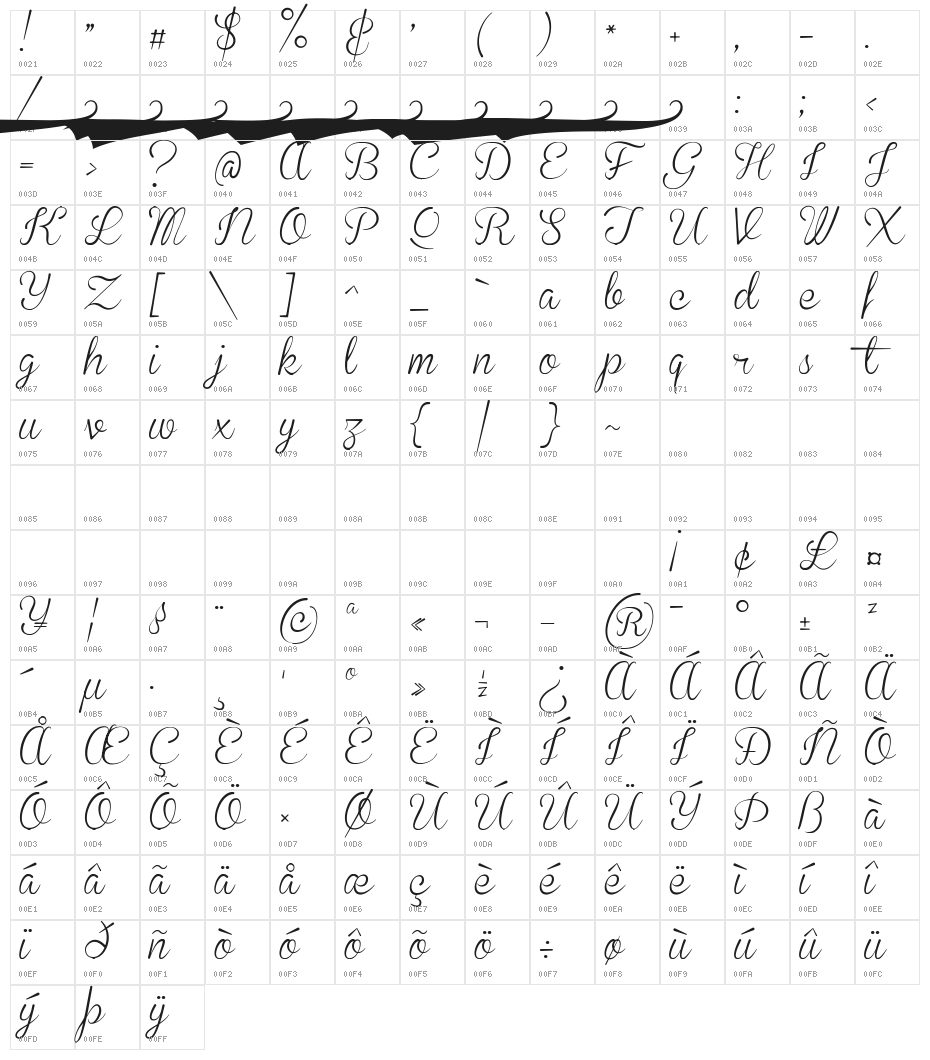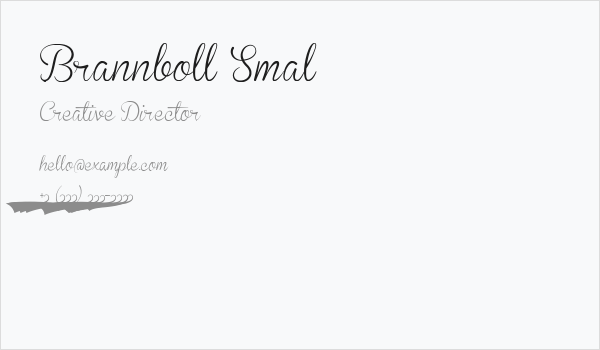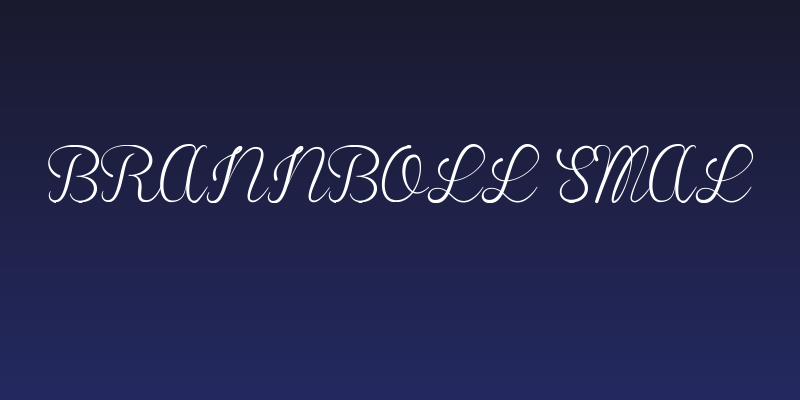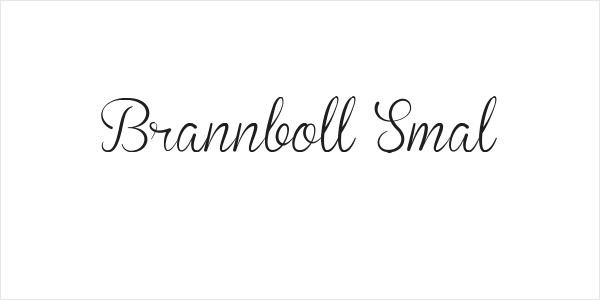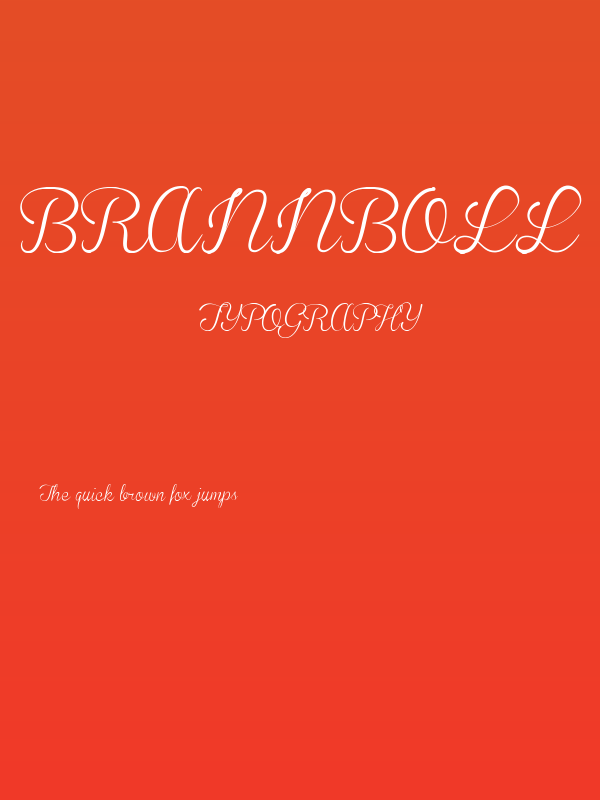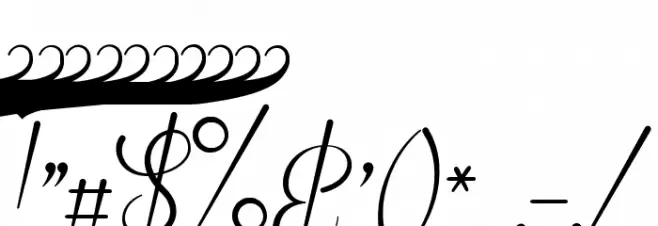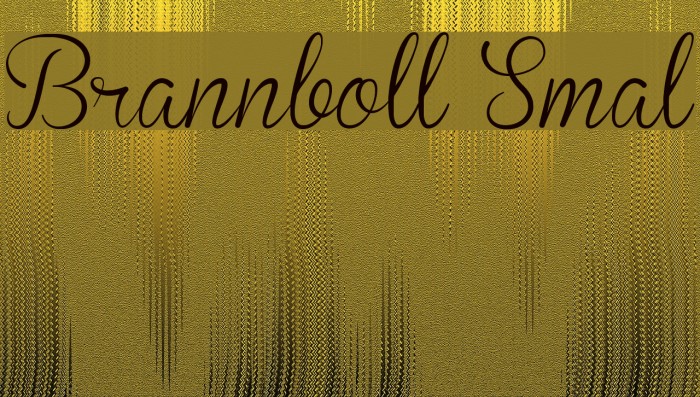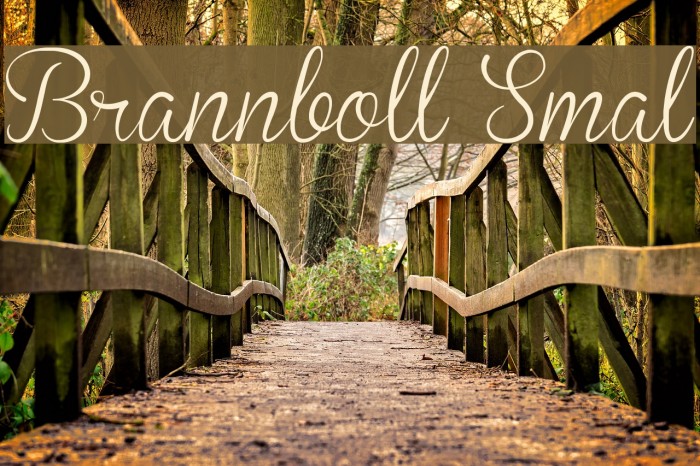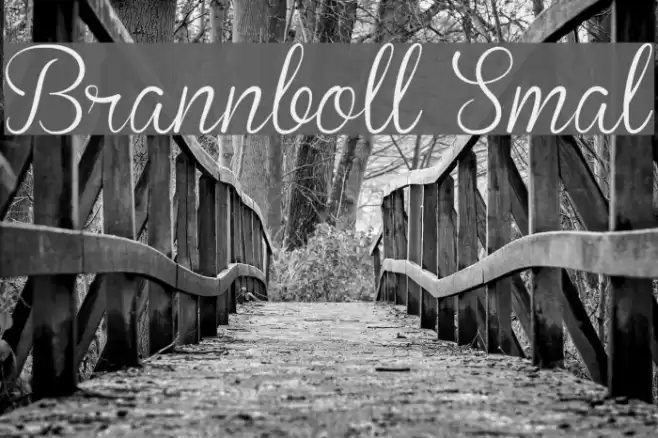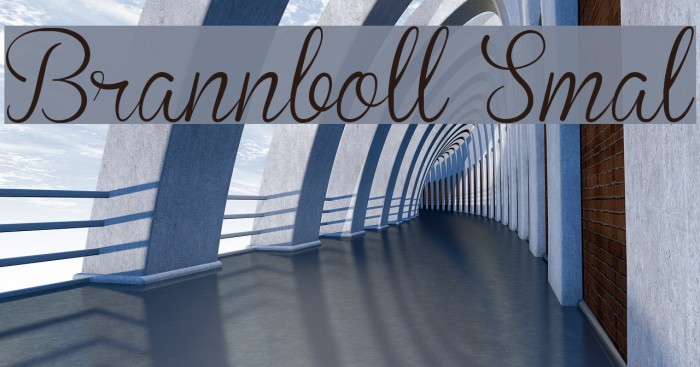
Brannboll Smal Font
Brannboll Smal Description
This font embodies a playful and elegant script style, characterized by its flowing, cursive letterforms that mimic the fluidity of handwriting. The uppercase letters are ornate, with sweeping curves and loops, while the lowercase letters maintain a more restrained yet still dynamic appearance. The font includes a variety of special characters and numerals, each designed with the same attention to detail and stylistic flair. The overall design is reminiscent of vintage baseball team logos, offering a nostalgic yet timeless appeal. Its smooth, continuous strokes and balanced proportions make it suitable for a range of creative applications.
| Overall Style | Vintage |
| Use Case | Logos, Invitations, Decorative text |
| Proposed Projects | Ideal for branding, invitations, greeting cards, and vintage-themed designs. |